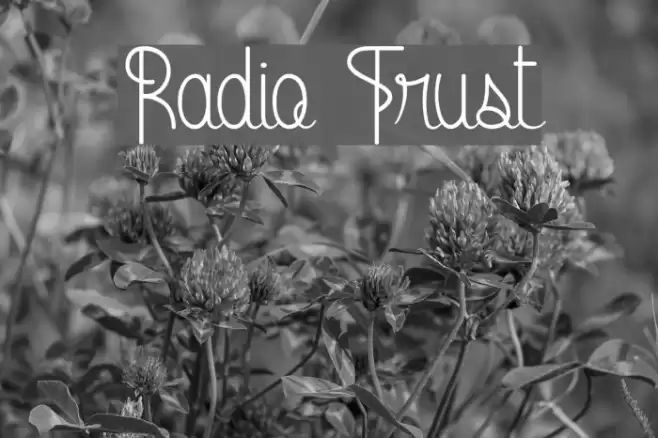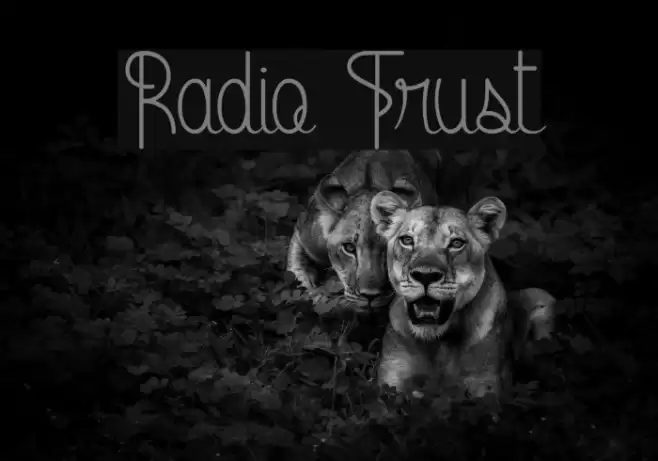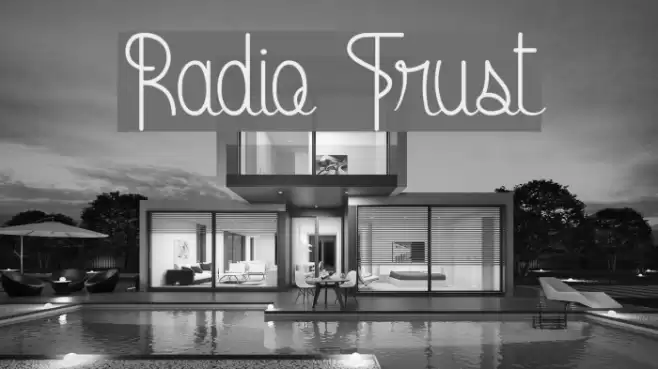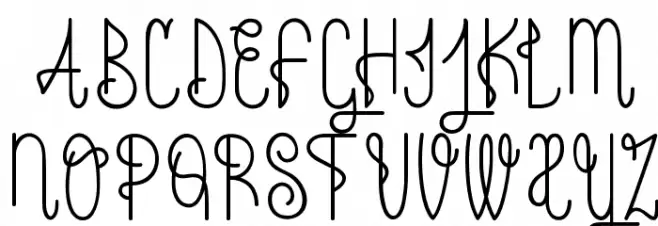
Radio Trust Font
Radio Trust Description
This font features a unique and playful script style with a whimsical touch. The characters are elongated and have a hand-drawn quality, giving them a casual and artistic appearance. The uppercase letters are tall and narrow, with some letters featuring loops and swirls that add to the decorative nature of the font. The lowercase letters maintain the same playful style, with consistent stroke width and a slightly condensed form. Numbers and special characters follow the same design principles, ensuring a cohesive look across all elements. This font is ideal for projects that require a personal and creative touch.
A playful and whimsical script font with elongated, hand-drawn characters from Uncategorized fonts.
- Proposed Projects: Great for greeting cards, invitations, playful branding, and artistic projects.
- Use Case: Logos, Invitations, Artistic projects